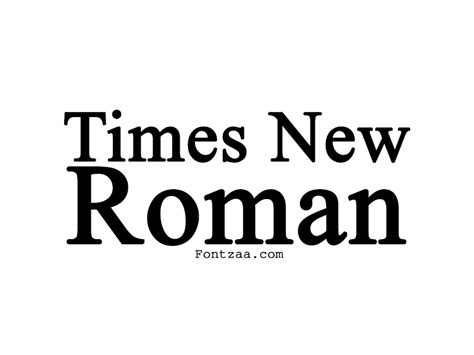
Times New Roman Font: A Deep Dive
Hey guys, ever wondered about the font that’s been a staple in documents, books, and pretty much everywhere for ages? We’re talking about Times New Roman , of course! It’s one of those fonts that you’ve seen so much you probably don’t even notice it anymore, but trust me, it’s got a story and some serious staying power. In this article, we’re going to dive deep into what makes Times New Roman tick, why it became so darn popular, and where you might still find it lurking in the digital wild. So, buckle up, because we’re about to uncover the secrets of this classic typeface.
The Origin Story: Born from Necessity
So, the story of Times New Roman really kicks off in the late 1920s. The Times of London, a pretty big deal newspaper, needed a new typeface. Their old one was, shall we say, a bit dated and wasn’t printing as crisply as they wanted on their new, thinner paper. Enter Stanley Morison, a renowned typographer and historian. He was tasked with finding or creating a font that would be efficient, readable, and elegant . He wasn’t working alone, though; he collaborated with the printing company L. Beechey and W.S. Marder at the Monotype Corporation. They took inspiration from older typefaces, particularly those from the Plantin and Baskerville families, but they wanted something distinct. The goal was to pack more text onto a page without making it look cramped. This meant a slightly condensed design and a higher x-height (the height of lowercase letters like ‘x’ without ascenders or descenders). They also focused on clear, legible letterforms with subtle serifs – those little decorative strokes at the ends of letters. The result was a font that was both economical and aesthetically pleasing . It was designed to be read easily in newspapers, which are typically printed on less-than-perfect paper and read under less-than-ideal lighting conditions. This practical origin is key to understanding its enduring appeal. It wasn’t created for artistic flair; it was built for function, readability, and space efficiency. And that, my friends, is a recipe for widespread adoption, especially when a publication as influential as The Times of London puts its name behind it. The initial release was in 1932, and it quickly made waves in the printing world. Its success wasn’t just a flash in the pan; it was a testament to clever design principles that addressed real-world printing challenges. It proved that a font could be both practical and beautiful, a balance that many designers still strive for today. Think about it: a newspaper needs to convey a lot of information, quickly and clearly. A font that allows for more words per column without sacrificing readability is a huge win. This efficiency factor is one of the primary reasons why Times New Roman became the go-to choice for so many publications and, later, for countless documents. Its roots are firmly planted in the need for clarity and conciseness, qualities that are universally valued in written communication.
The Rise to Dominance: Microsoft’s Big Move
Alright, so Times New Roman had a solid start in the print world, but what really catapulted it into internet superstardom? You guessed it: Microsoft . In the early 1990s, as personal computers were becoming mainstream, Microsoft needed a default font for its Windows operating system. They wanted something that looked professional, was widely available, and wouldn’t cause licensing headaches. And guess who fit the bill perfectly? Our old friend, Times New Roman. By including it as a standard font in Windows, Microsoft essentially put it on millions of computers worldwide. Suddenly, everyone had access to a typeface that felt familiar and authoritative. This move was a game-changer. People creating documents on their PCs naturally gravitated towards the fonts that were readily available, and Times New Roman was right there. It became the go-to for essays, reports, resumes, and pretty much any formal document you could think of. Its presence was so pervasive that it started to feel like the default setting for seriousness . Think about your school days – chances are, most of your papers were typed in Times New Roman. It became the unofficial standard for academic work, business correspondence, and legal documents. This ubiquity wasn’t accidental; it was a direct result of Microsoft’s strategic decision. By embedding it so deeply into the operating system, they ensured its widespread adoption. It’s a classic case of how technology and design intersect to shape our visual landscape. The convenience factor cannot be overstated. When you’re writing a document and need a font, you’re more likely to pick one that’s already there and looks good enough. Times New Roman checked all those boxes. It was legible, it had a formal feel, and it was free with your operating system! This made it incredibly appealing to a mass audience. Furthermore, its design, while conservative, is quite versatile. It works reasonably well for both body text and headings, making it a one-stop shop for many users. The sheer volume of documents created in Times New Roman over the decades has cemented its place in our collective visual memory. It’s the font that many of us learned to type with, the font that accompanied our first professional communications, and the font that often signifies a completed task. Its journey from a newspaper typeface to a global digital standard is a fascinating tale of technological adoption and the power of default settings. It really shows how a seemingly small decision by a tech giant can have a massive, long-lasting impact on how we present information to the world. And let’s be honest, guys, it just looks serious . That’s a big part of its appeal in formal contexts.
Why It Endures: The Classics Never Die
Even in today’s world overflowing with stylish, modern fonts, Times New Roman still holds its ground. Why? Well, several factors contribute to its enduring appeal. Firstly, readability is still its superpower. The clear letterforms, well-defined serifs, and balanced proportions make it incredibly easy to read, especially for long blocks of text. This is crucial for academic papers, books, and reports where the primary goal is to convey information clearly and without eye strain. Secondly, it carries a certain gravitas and professionalism . Because it’s been around for so long and used in so many formal settings, it immediately signals that a document is serious, official, or academic. It’s the visual equivalent of a well-tailored suit – reliable and appropriate for almost any formal occasion. Think about it: you’re unlikely to submit a job application or a legal brief in a super trendy, whimsical font, right? Times New Roman offers that sense of trust and tradition. Thirdly, compatibility and ubiquity are still huge advantages. As we discussed, it’s available on virtually every computer. This means that no matter who you send a document to, they’ll be able to open and view it perfectly, without any font substitution issues. This universal accessibility is a massive practical benefit that many other fonts simply can’t match. It ensures your message comes across exactly as intended, without formatting surprises. Fourthly, while some might call it ‘boring,’ its classic design is actually quite timeless. It doesn’t rely on fleeting trends. The proportions and details have stood the test of time, meaning it doesn’t look dated in the way some trendier fonts might after a few years. It’s a safe, reliable choice that always looks appropriate. Finally, for many, it evokes a sense of nostalgia and familiarity . It’s the font many of us grew up with, the font used in countless important documents throughout our lives. This deep-seated familiarity can create a subconscious sense of comfort and trust. So, while designers might be exploring the latest sans-serif innovations or experimenting with decorative scripts, Times New Roman remains a solid, dependable workhorse. It’s the reliable friend who’s always there when you need them – perhaps not the most exciting, but incredibly trustworthy and effective. Its continued presence in legal documents, academic journals, and official publications is a testament to its fundamental design strengths. It proves that sometimes, the most effective design is the one that gets out of the way and lets the content shine through. It’s a font that has earned its place in history through sheer utility and consistent performance. It’s the backbone of a lot of written communication, and frankly, guys, that deserves some recognition! It’s a testament to good, functional design that transcends mere aesthetics.
When to Use (and When to Avoid) Times New Roman
Alright, so we know Times New Roman is a classic, but like any tool, it’s best used in the right situations. Let’s break down when you should absolutely reach for it and when you might want to consider something else. Definitely use Times New Roman when: you’re writing academic papers, theses, or dissertations. Universities and academic journals often have strict style guides, and Times New Roman is frequently the default or required font for its readability and formal appearance. This is probably its strongest territory, guys. Resumes and cover letters are another prime candidate. You want to project professionalism, seriousness, and attention to detail, and Times New Roman nails that. It says, ‘I’m serious about this opportunity.’ Legal documents and official correspondence also fall into this category. Contracts, court filings, business proposals – anywhere formality and clarity are paramount, Times New Roman is a safe and accepted bet. Its long history of use in these fields lends it an air of authority. Books and long-form articles are also where it shines. If you’re publishing a novel or a lengthy report, its excellent readability for extended reading sessions makes it a fantastic choice. It won’t tire your readers’ eyes. Now, when might you want to think twice? For presentations and slide decks , Times New Roman can often look a bit dated and stuffy. Modern sans-serif fonts (like Arial, Calibri, or Helvetica) tend to be cleaner and more visually engaging on screens, especially for headlines and bullet points. Websites and digital content generally benefit from sans-serif fonts for screen readability. While Times New Roman can be used, it’s not optimized for the pixel grids of most screens and might appear slightly fuzzy or less crisp compared to its print counterpart. Marketing materials and branding usually call for something with more personality. Times New Roman is very neutral, which is great for formality but not ideal for conveying a unique brand identity or creating a bold visual impact. Think flyers, posters, or logos – you’ll likely want something more distinctive. Informal communication , like emails to friends or casual notes, can definitely use something more relaxed and friendly. Using Times New Roman in these contexts might just seem a bit overly formal or even stiff. In essence, use Times New Roman when you need to convey authority, seriousness, and timeless professionalism , especially in print or in very formal digital contexts. If you need to grab attention, create a modern feel, or ensure optimal screen readability for a broad audience, consider exploring other typeface options. It’s all about matching the font to the message and the medium, you know? Sometimes the classic is perfect, and sometimes it’s time to experiment.
The Future of Times New Roman: Still Relevant?
So, what’s next for Times New Roman ? Is this old-school font destined to fade into obscurity as the digital world embraces sleeker, more modern typefaces? I don’t think so, guys! While it’s true that the design landscape is constantly evolving, and new fonts are emerging all the time, Times New Roman isn’t going anywhere soon. Its enduring relevance is rooted in its fundamental strengths: unparalleled readability for long-form text, a strong sense of formality and authority, and universal accessibility . These are qualities that will always be in demand, especially in academic, legal, and publishing industries. Think about it – the core purpose of written communication hasn’t changed. We still need clear, reliable ways to convey complex information. Times New Roman excels at this. Moreover, its very ubiquity has created a sort of visual inertia . It’s so deeply embedded in our systems and our expectations that dislodging it entirely would be a monumental task. For many people, it’s the default font they know and trust, and that’s a powerful thing. However, its role is definitely shifting. We’re seeing a greater variety of fonts used in digital interfaces and marketing. Sans-serif fonts have largely taken over for web and app design due to their superior screen rendering. But this doesn’t negate the value of Times New Roman. It simply means its domain is becoming more specialized. It will likely remain the king of the formal print document and a strong contender for academic and legal texts . We might also see designers playfully subverting its serious image, using it in ironic or unexpected ways for creative projects. Its future isn’t about being everywhere, but about being the best choice for specific, important tasks where its inherent qualities are most valued. The key is its versatility within its niche . It’s the reliable veteran who might not be the flashiest player on the field but is always dependable when the game is on the line. So, while you might not use it for your personal blog or your social media graphics, rest assured that Times New Roman will continue to be a cornerstone of formal communication for the foreseeable future. It’s a testament to the power of well-executed, functional design that it can adapt and remain relevant even as technology and aesthetics change dramatically around it. It’s a survivor, and for good reason. Its legacy is secure, not just as a font, but as a piece of design history that continues to serve a vital purpose.